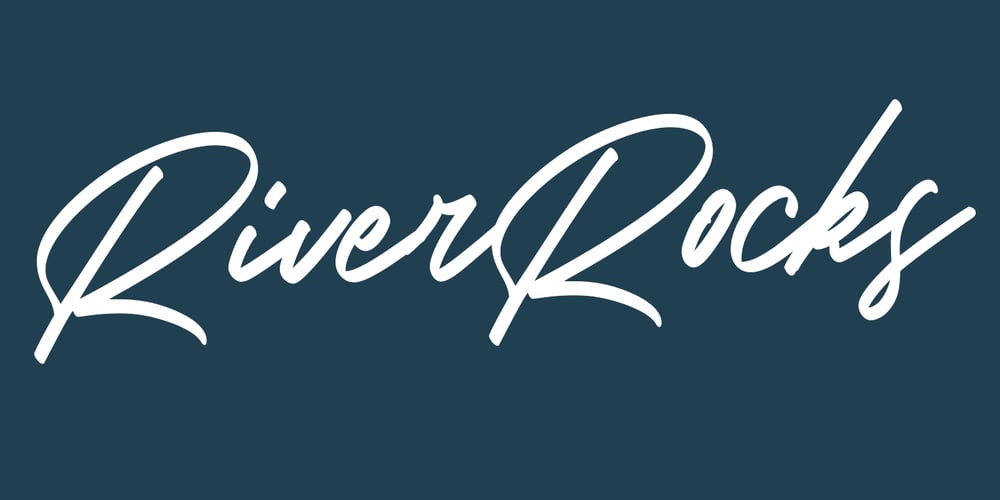
River Rocks
River Rocks font
River Rocks Font Family was designed by Gilang Maulana and published by Maulana Creative. River Rocks contains 1 styles and family package options. Give your designs an authentic handcrafted feel. “River Rocks Brush” is perfectly suited to signature, stationery, logo, typography quotes, magazine or book cover, website header, clothing, branding, packaging design and more.Thanks for use this font ~ Maulana